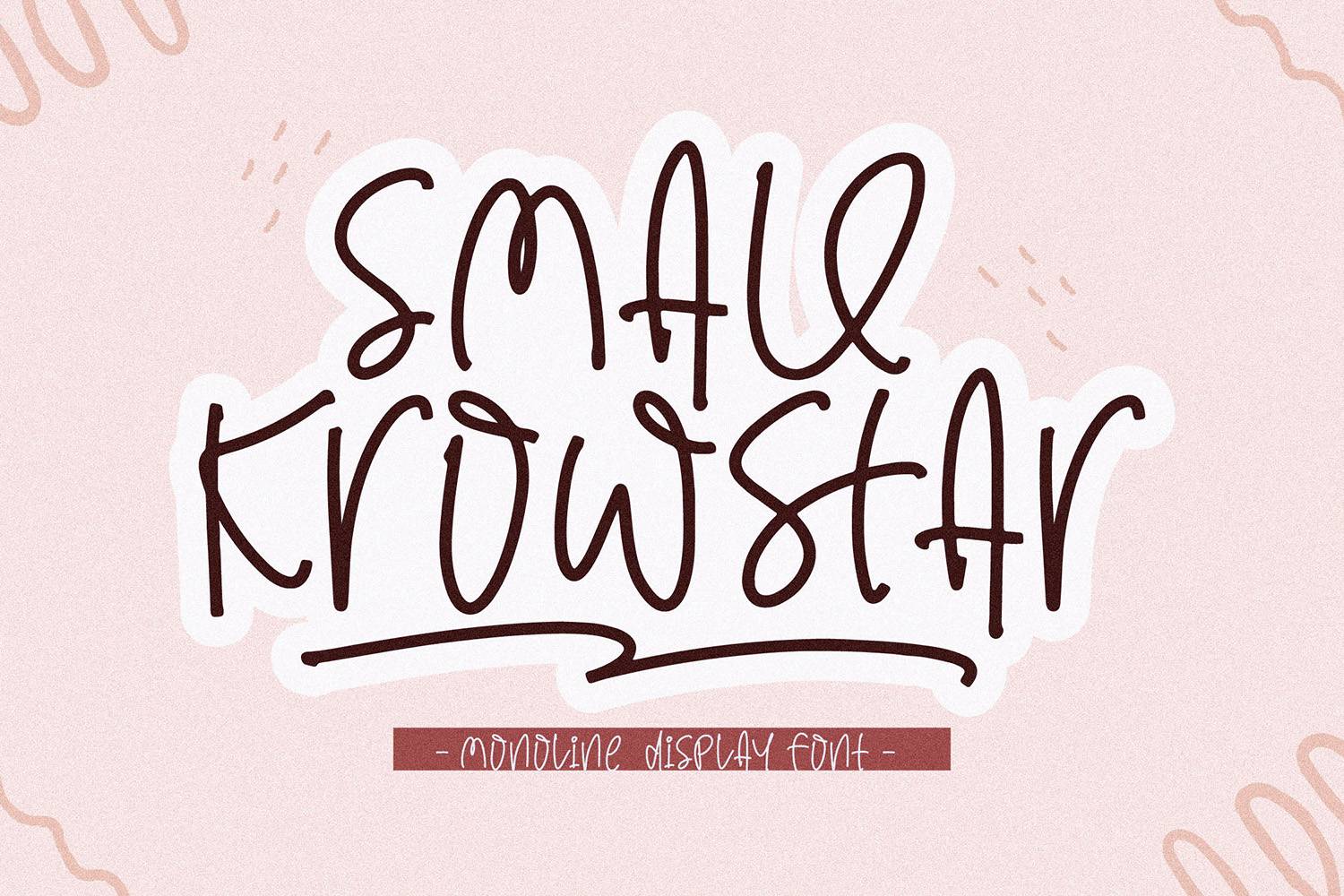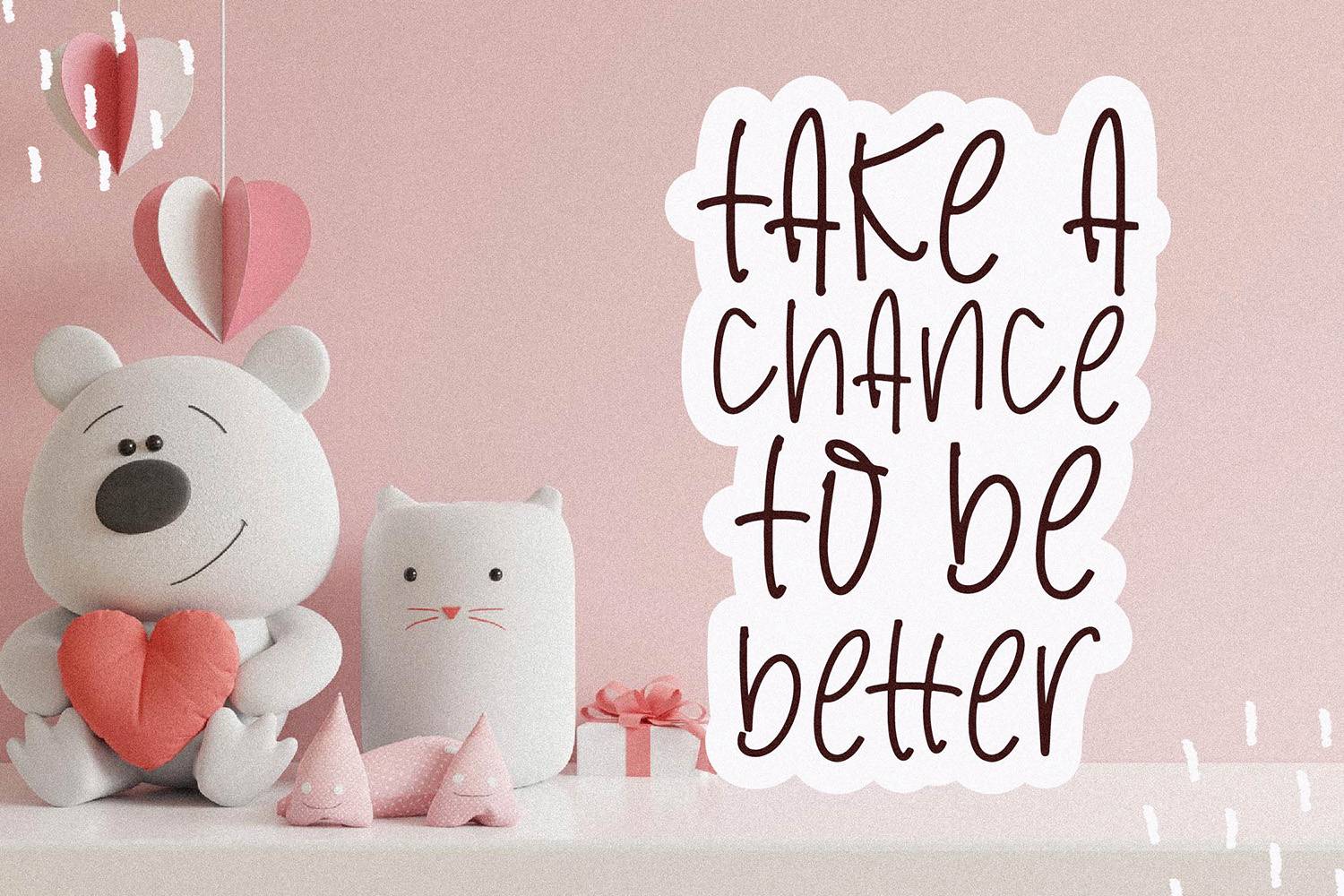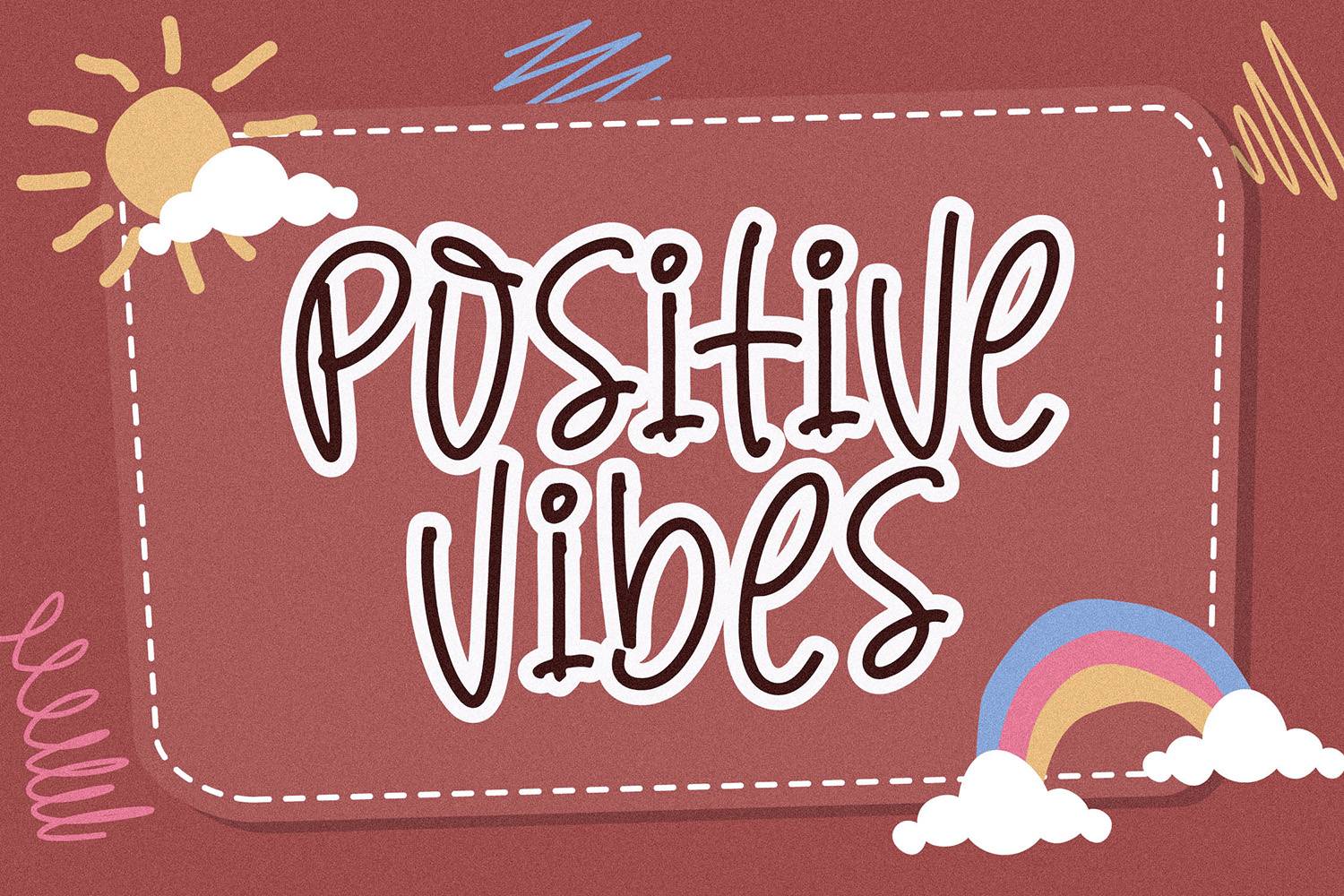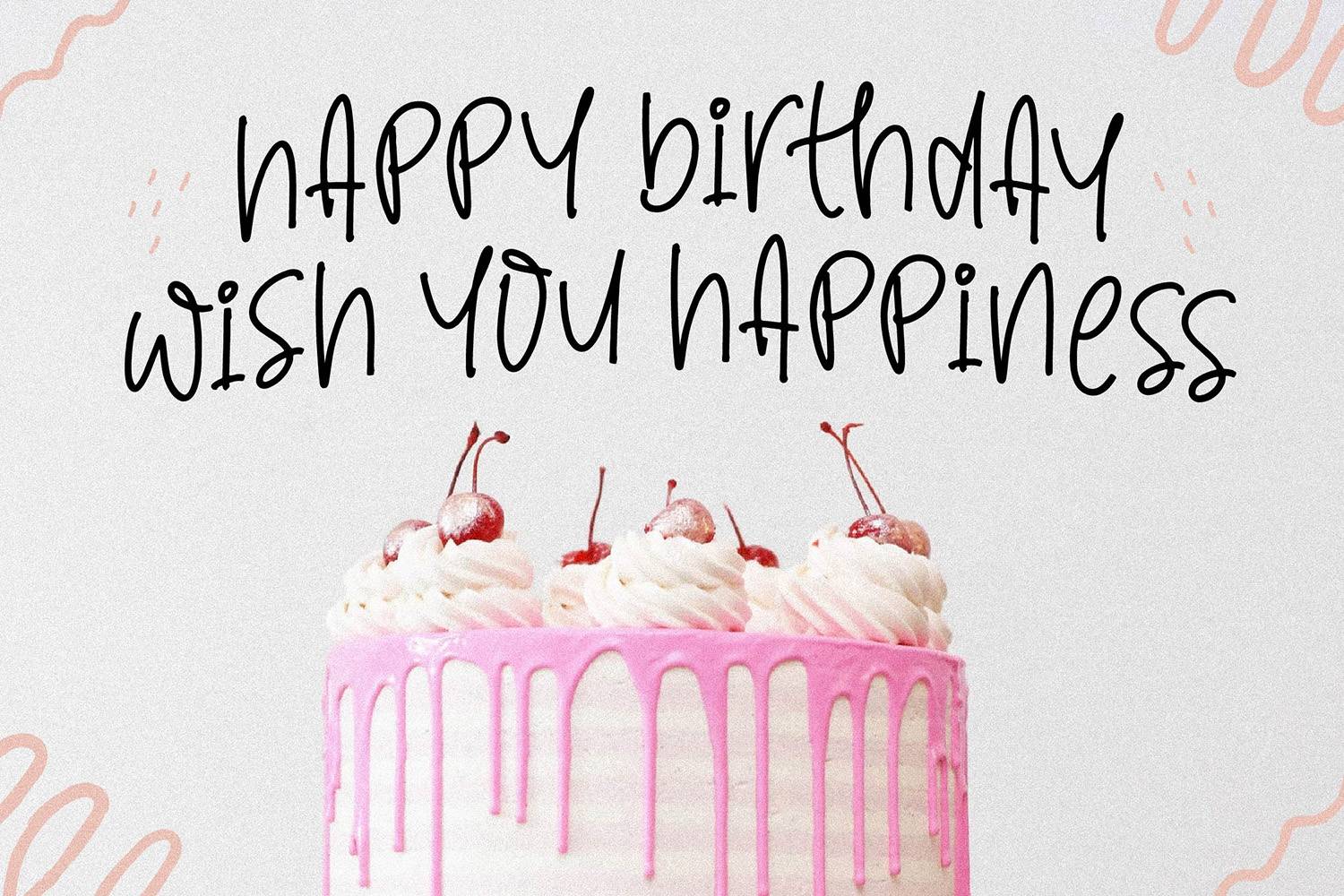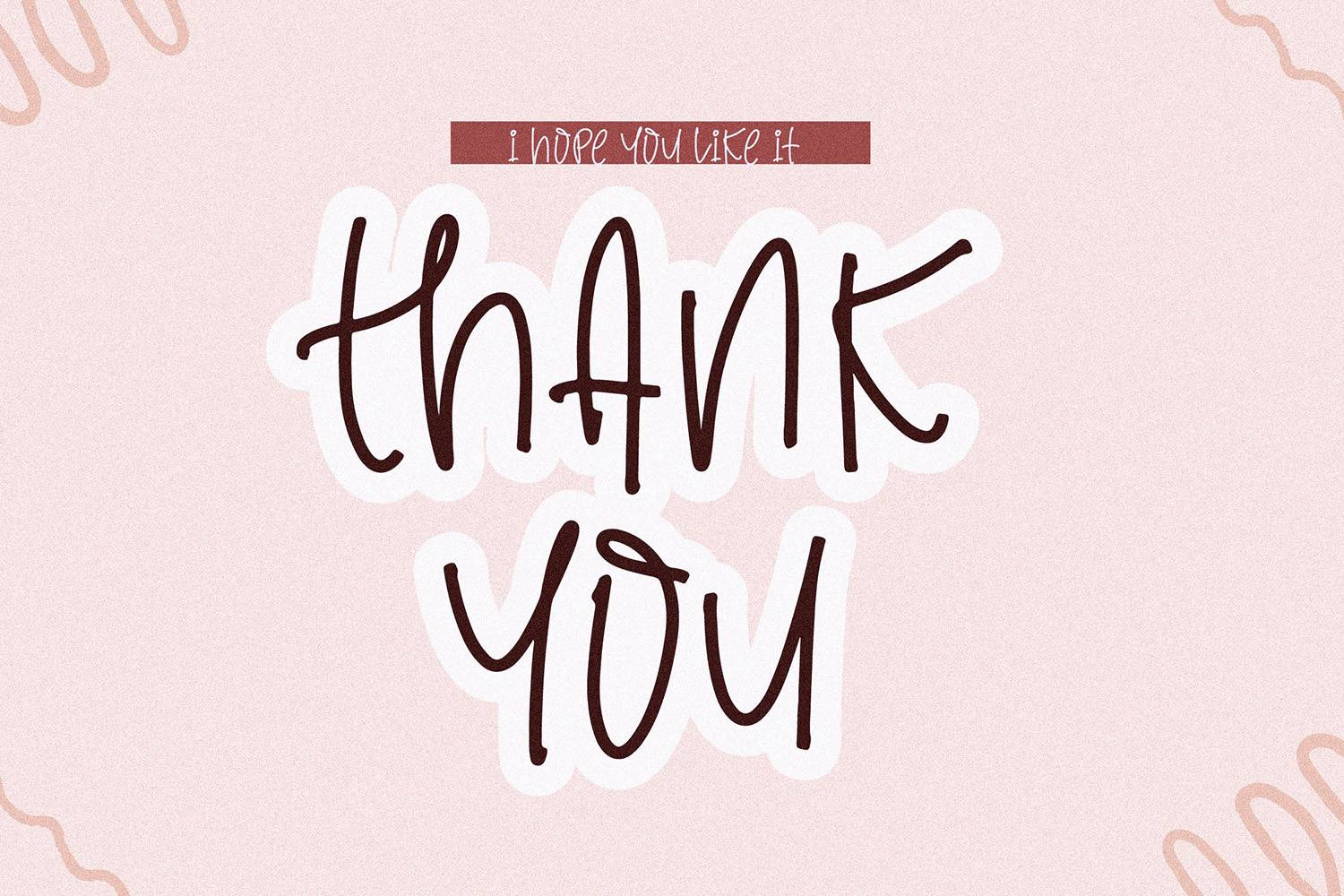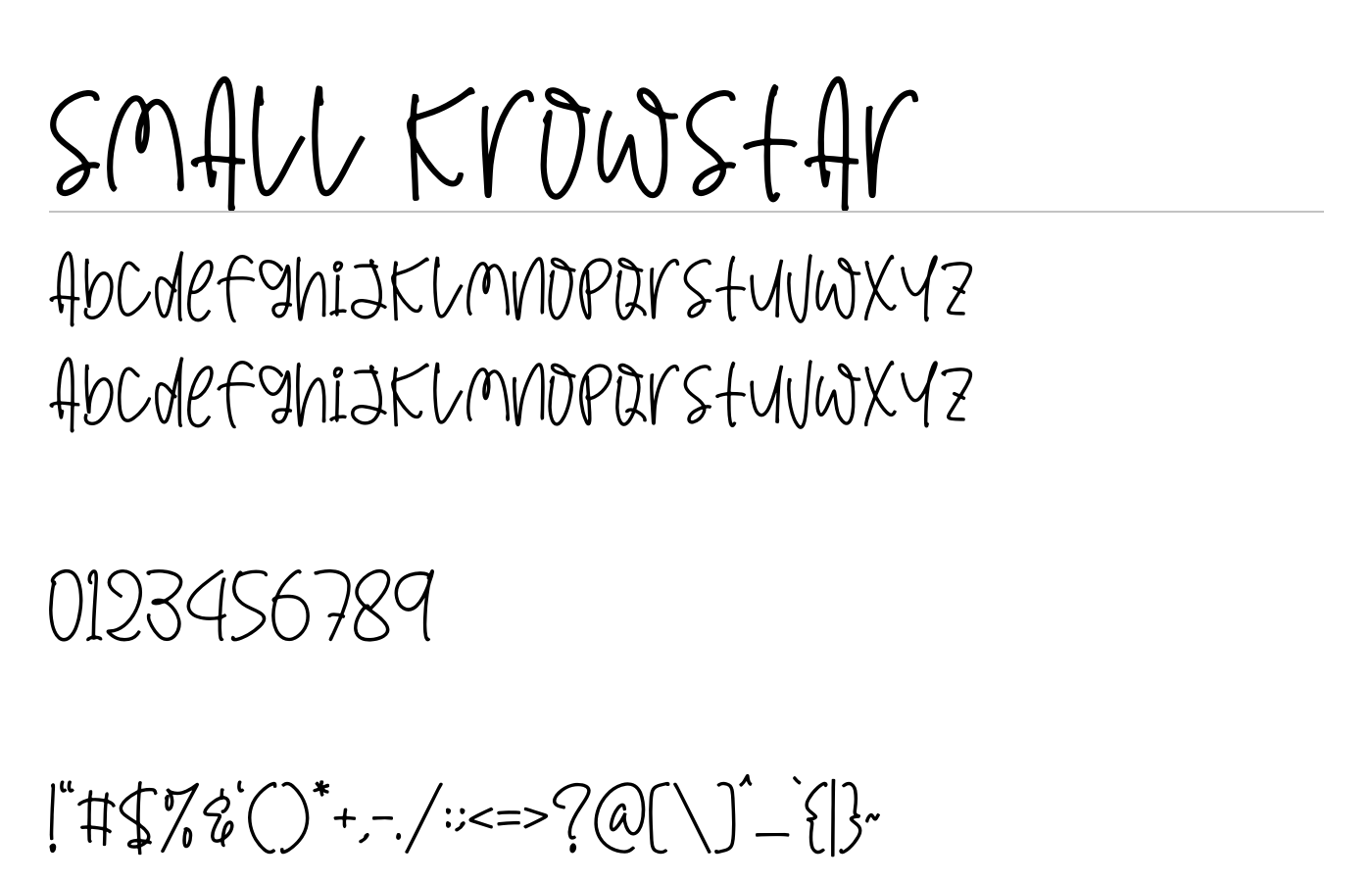
Small Krowstar is a playful, handwritten sans serif font with a tall, narrow structure and casual, uneven strokes that give it a personal and approachable feel. Its light weight and quirky letterforms, including unique lowercase characters, make it ideal for fun, informal designs such as children’s books, creative branding, and whimsical headlines where a friendly, hand-drawn style is desired.
Small Krowstar Font